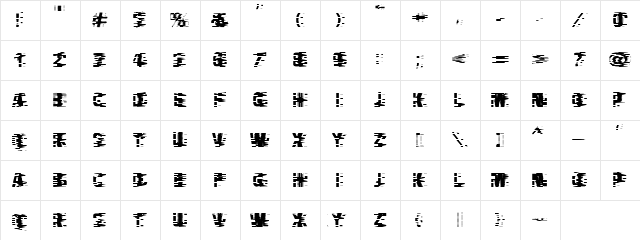
Complete VTCBadHangover Regular glyph index. Displaying only characters natively supported by VTCBadHangover Regular font.
VTCBadHangover is a composed and adaptable typeface that performs quietly and consistently across a wide range of design contexts.